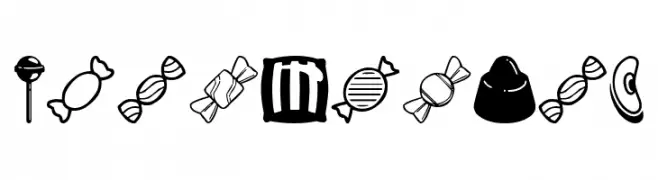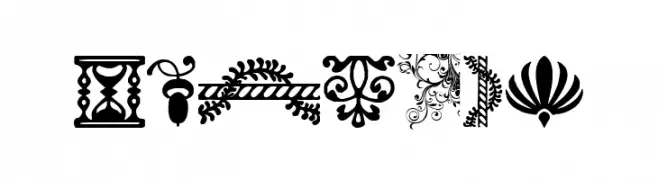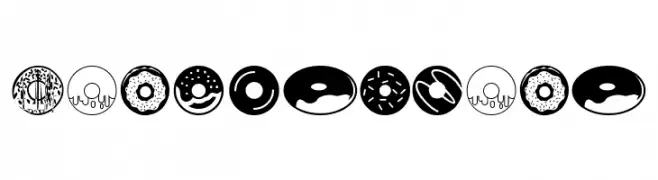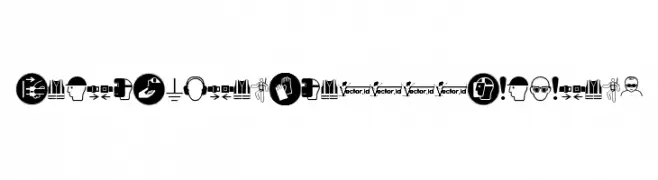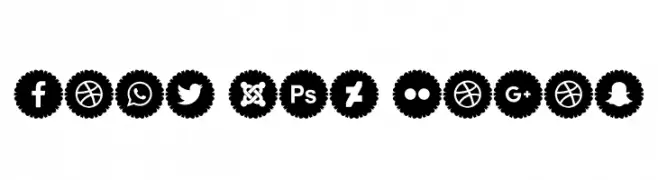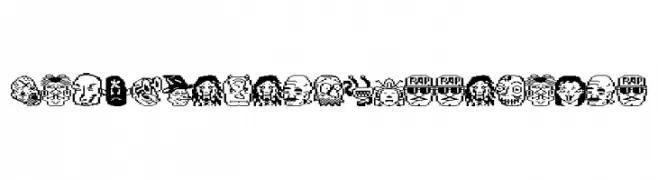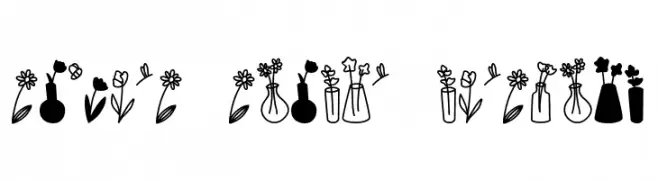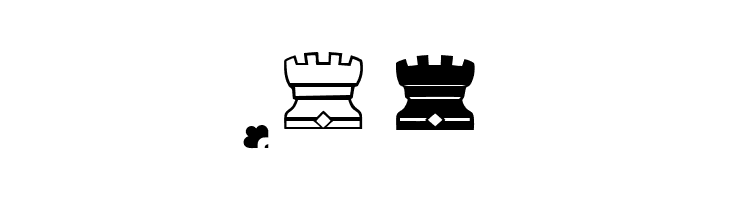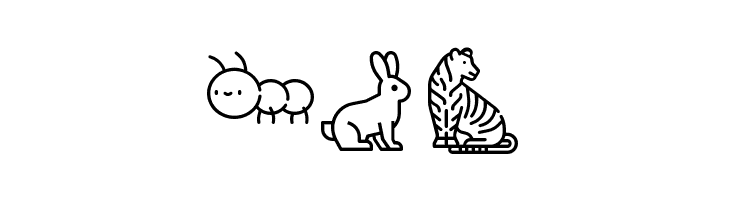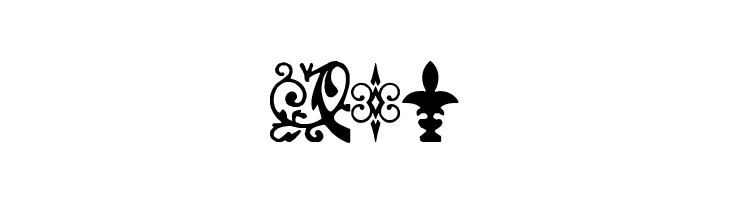
Pictogram font with ISO 7010 mandatory safety symbols.
Bold, circular sawtooth badges containing simplified brand and social media icons.
Chess-themed icon font with bold, geometric chess piece illustrations.
Outlined, cartoon-style icon font with animals and educational symbols.
A quirky, head-themed decorative font with pixel art illustrations for each character.
Bold, high-contrast tennis icon set with consistent silhouettes.
A whimsical set of botanical and floral illustrations with a hand-drawn style.
A collection of intricate, vintage-inspired decorative elements with art deco influences.
Whimsical, high-contrast donut icon set with diverse designs.
Fun, bold candy-themed icon set with diverse sweet illustrations.